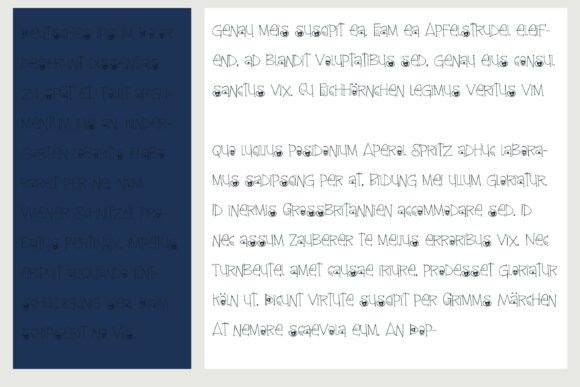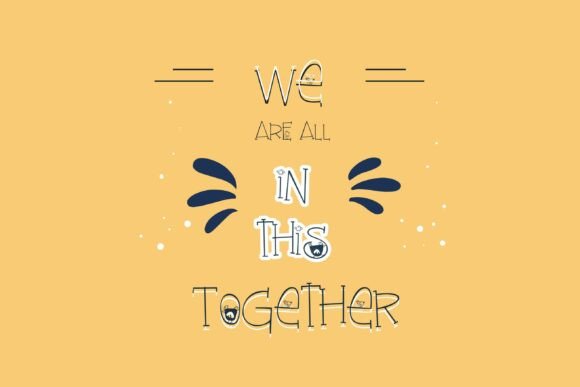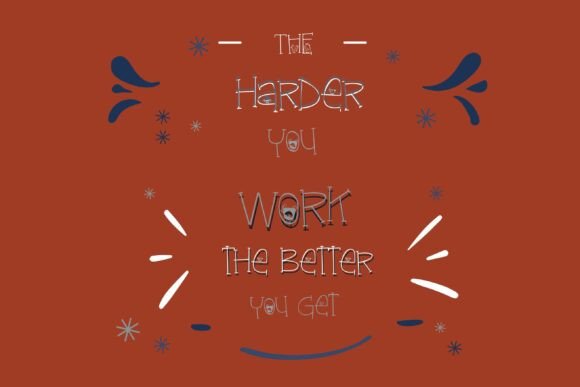
Chickfeet Font
This hand-crafted font is a whimsical hand-written serif with adorable chicks throughout.A hand-crafted font is a font that is designed to look like it was written by hand. It is often used for invitations, greeting cards, and other items. Handwritten fonts can be either formal or informal, and they can be used for a variety of purposes.